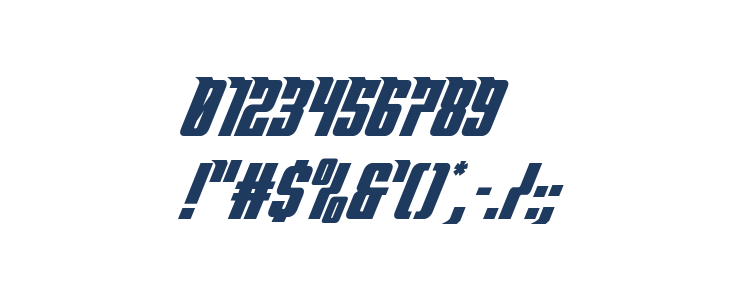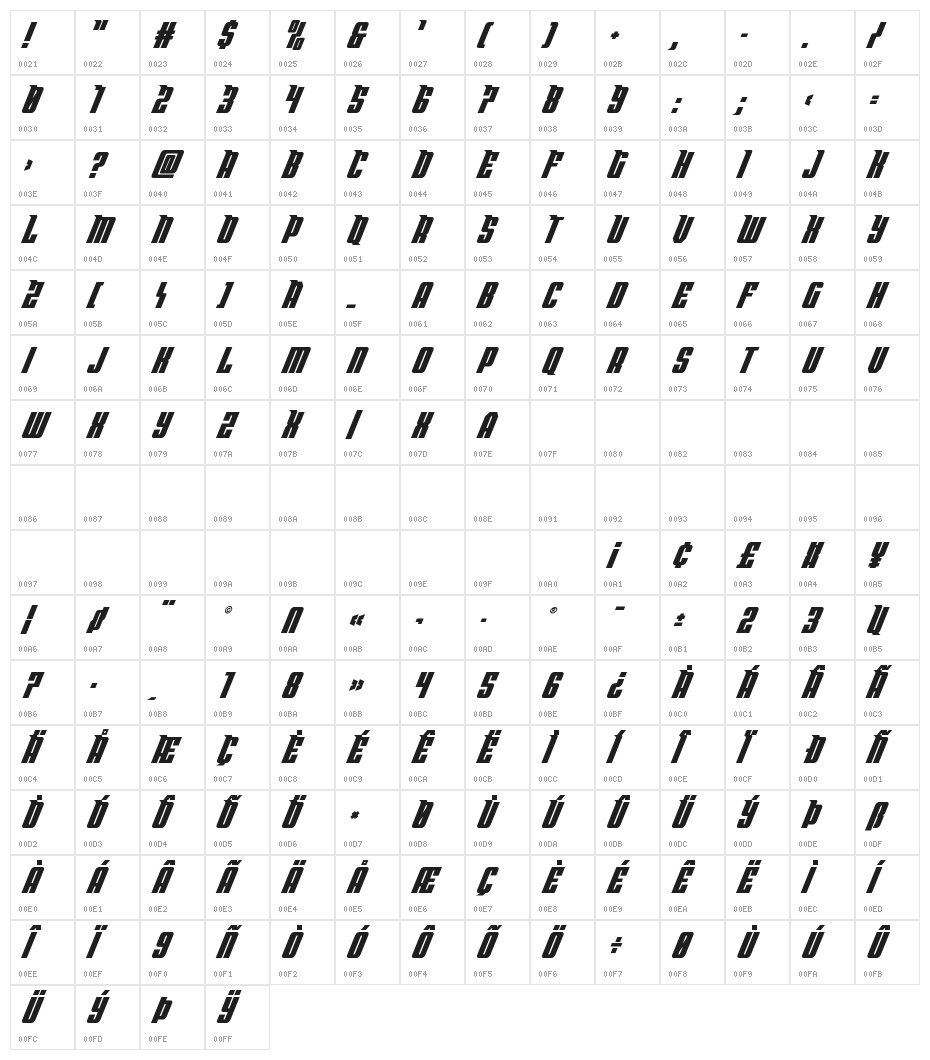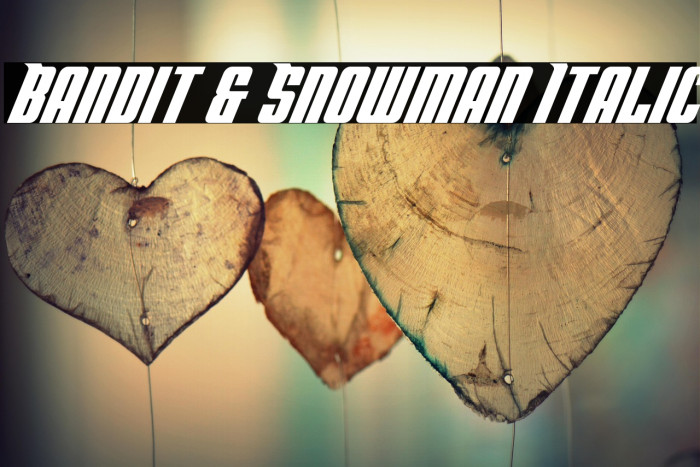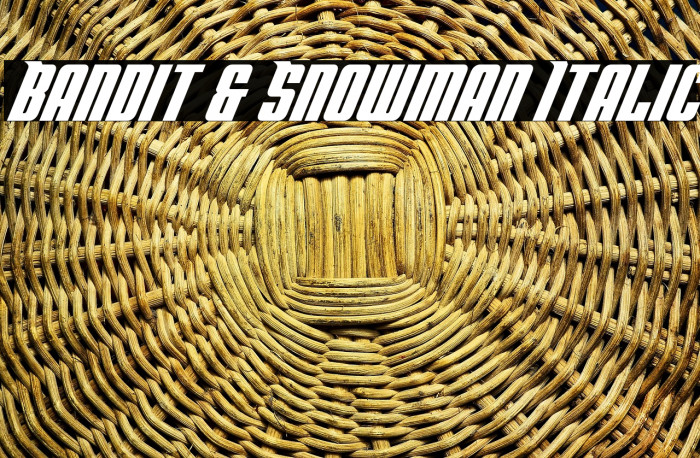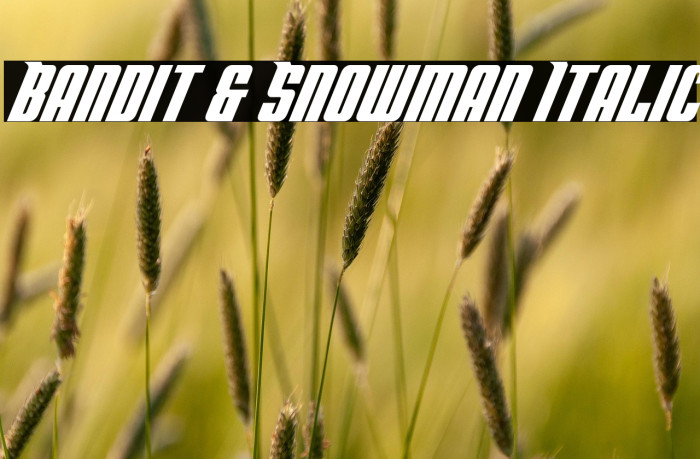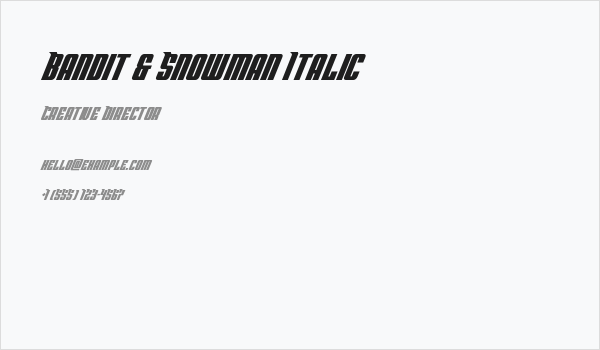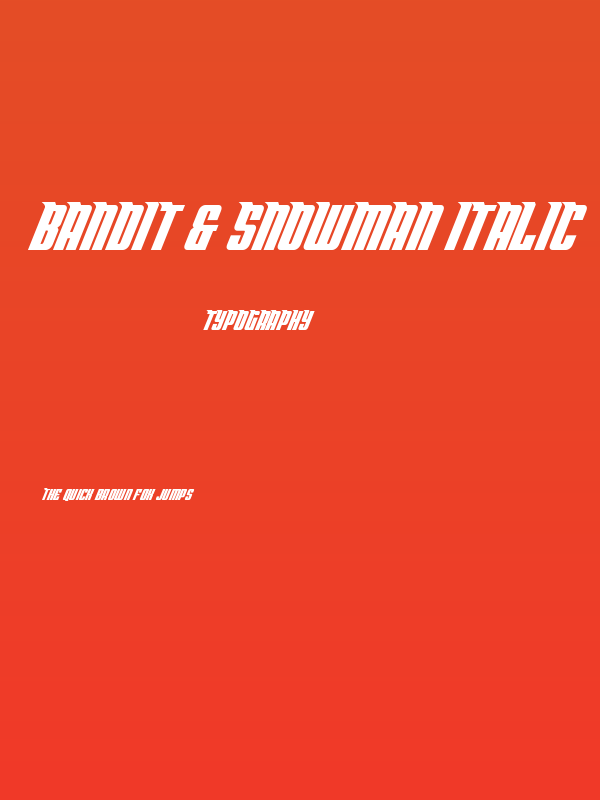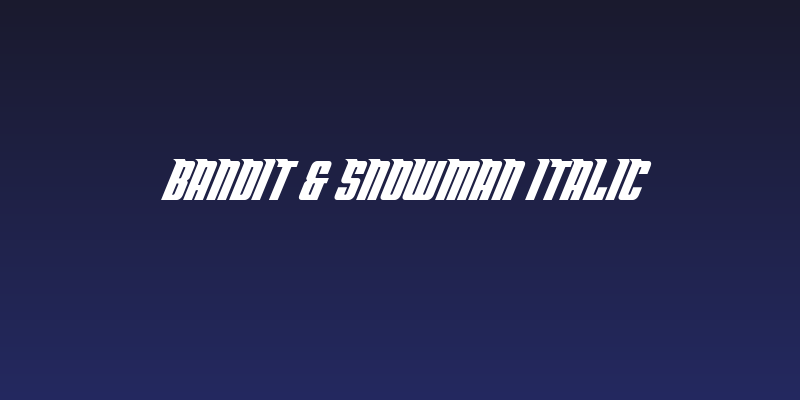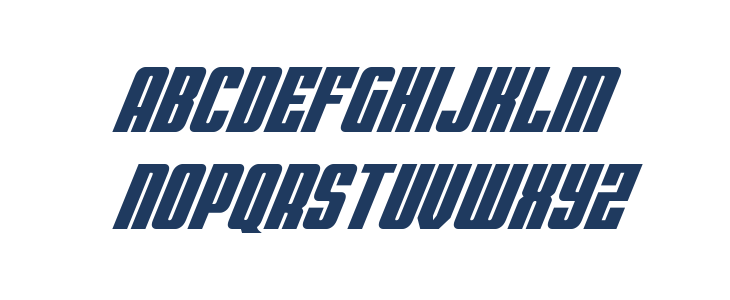
Bandit & Snowman Italic Font
Bandit & Snowman Italic Description
This font exudes a bold and dynamic presence with its italicized, angular design. The characters are sharply slanted, giving a sense of motion and urgency. The strokes are thick and consistent, creating a strong visual impact. The uppercase and lowercase letters maintain a uniform style, with the uppercase being particularly striking due to their size and boldness. Numbers and special characters are designed to match the assertive style, ensuring a cohesive look across all text. The font's aggressive and modern aesthetic makes it suitable for attention-grabbing headlines and branding projects.
| Proposed Projects | Ideal for sports branding, action movie posters, and dynamic advertising campaigns. |